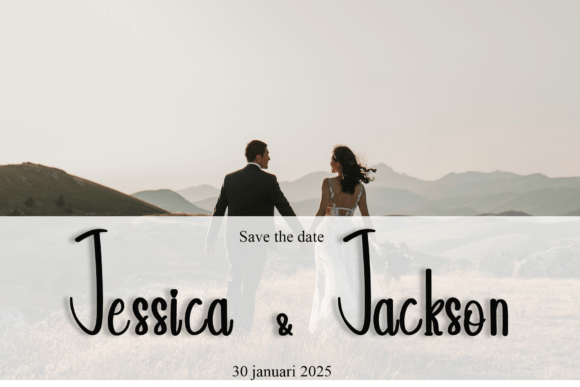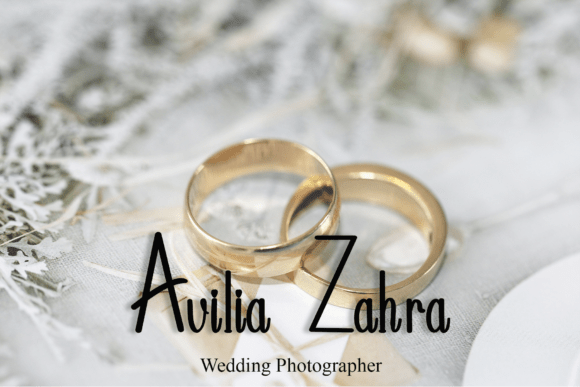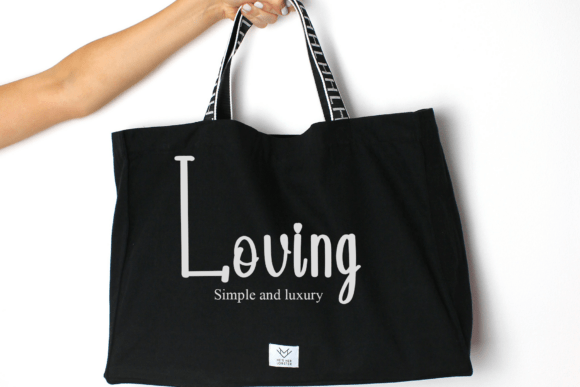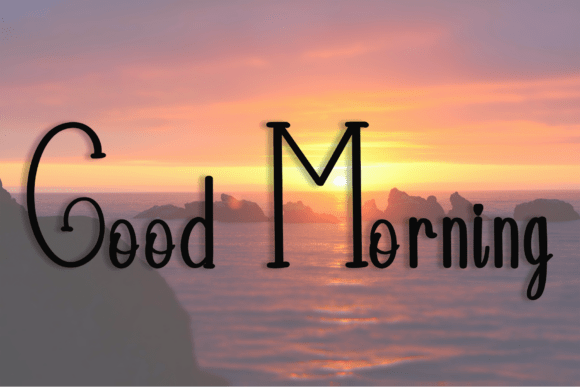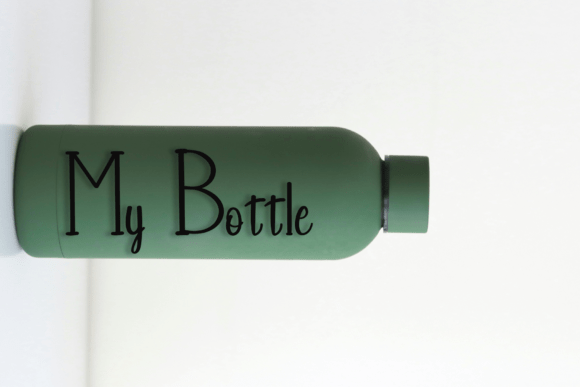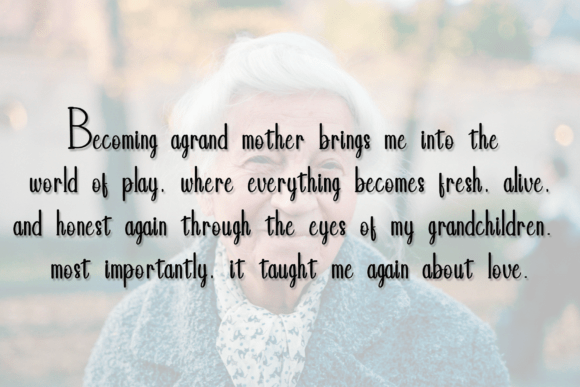
Introducing Grandma Font: The Perfect Blend of Warmth and Creativity
Are you tired of using the same old fonts for your personal projects, invitations, and social media graphics? Look no further than Grandma Font, a casual and creative typeface that exudes warmth and friendliness. With its round, playful strokes, Grandma Font creates a relaxed and approachable feel that’s perfect for designers and crafters looking to add a personal touch to their work.
The Charm of Grandma Font
Grandma Font is a hand-drawn font that boasts a charming, unique aesthetic that’s sure to make your designs stand out. Its playful strokes and rounded edges give it a soft, inviting feel that’s reminiscent of a warm hug from your grandma. Whether you’re creating a birthday invitation, a social media graphic, or a personal blog post, Grandma Font is the perfect choice for adding a touch of personality to your design.
Key Features of Grandma Font
- Casual and Creative: Grandma Font is a casual and creative typeface that’s perfect for personal projects, invitations, and social media graphics.
- Warm and Friendly: The font’s round, playful strokes create a relaxed and approachable feel that’s sure to make your designs feel warm and friendly.
- Hand-Drawn Aesthetic: Grandma Font boasts a charming, hand-drawn aesthetic that adds a fun and unique touch to any design.
Why Choose Grandma Font?
So why choose Grandma Font over other fonts? For starters, its unique and charming aesthetic is sure to make your designs stand out from the crowd. Additionally, the font’s casual and creative vibe makes it perfect for a wide range of design applications, from personal projects to commercial use. Plus, with its PUA Encoded glyphs, you can easily use Grandma Font in a variety of design software, making it a versatile and practical choice for designers and crafters.
Using Grandma Font in Your Designs
Tips and Tricks for Getting the Most Out of Grandma Font
To get the most out of Grandma Font, try pairing it with other fonts to create a unique and eye-catching design. You can also experiment with different colors and textures to add depth and interest to your design. Additionally, don’t be afraid to get creative and try out new and innovative design ideas – Grandma Font is the perfect choice for designers and crafters who want to push the boundaries of what’s possible.
In conclusion, Grandma Font is a casual and creative typeface that’s perfect for designers and crafters looking to add a personal touch to their work. With its charming, hand-drawn aesthetic and warm, friendly vibe, Grandma Font is sure to make your designs stand out from the crowd. Whether you’re creating a personal project, invitation, or social media graphic, Grandma Font is the perfect choice for adding a touch of personality and whimsy to your design.